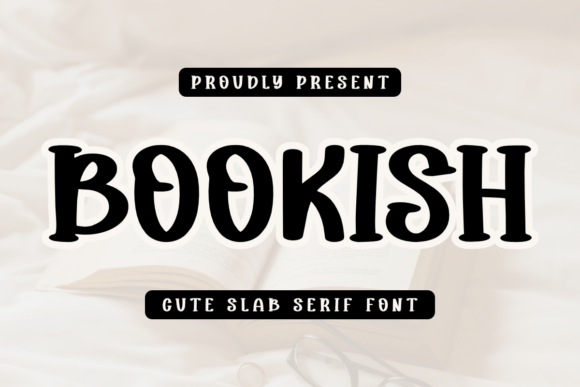
Discover the Perfect Font for Whimsical Creations
Have you ever found yourself lost in a sea of design possibilities, only to stumble upon the perfect font that makes your project come alive? For designers and creatives, this moment is pure magic. It’s the spark that sets the creative juices flowing and transforms a mundane project into something truly special.
Enter the Bookish Font, a delightful and minimalist slab serif font that’s perfect for a variety of applications, from greeting cards and wedding invitations to gift labels and quotes. With its cute and charming aesthetic, this font is a valuable addition to any designer’s toolkit, allowing them to create spectacular and interesting designs that stand out from the crowd.
Bookish Font Key Features
- Font Family: Bookish Font is a serif font designed to evoke a sense of classic literature and nostalgia.
- Character Set: Supports a wide range of languages, including Latin, Greek, and Cyrillic alphabets.
- Unique Characteristics: Bookish Font features subtle variations in letterform design, creating a sense of organic texture and visual interest.
Bookish Font Review
I’ve worked with Bookish Font in a few projects and overall, it’s a great choice for book lovers and those who want to give their content a vintage, intellectual vibe ✨. The font’s unique combination of elegance and playfulness makes it perfect for titles, headings, and even body text in publications, blogs, and social media platforms.
Some of the things I love about Bookish Font include:
- Its versatility in use – from posters to book covers, it adapts well to various contexts
- Its wide range of weights and styles, allowing for creative expression and emphasis
- Its seamless integration with various digital platforms, making it a great choice for online content
However, I’ve encountered a few limitations ⚠️:
- Sometimes, the font can appear too ornate, making it difficult to read at smaller sizes
- It may not be the best choice for projects that require a more modern or minimalist aesthetic
Overall, I’d recommend Bookish Font for those who want to add a touch of sophistication and intellectualism to their content. With its unique style and wide range of uses, it’s a great addition to any designer’s toolkit ✨.
Getting the Most Out of Bookish Font
Bookish Font is best used for creating a vintage or classic look. To get the most out of it, try combining it with other distressed or vintage fonts. Experiment with different font sizes and styles to create a unique and eye-catching design.
Bookish Font is commonly used for book covers, book titles, and other literary-themed designs. It can also be used for creating a vintage or classic look for social media graphics, posters, and other marketing materials.